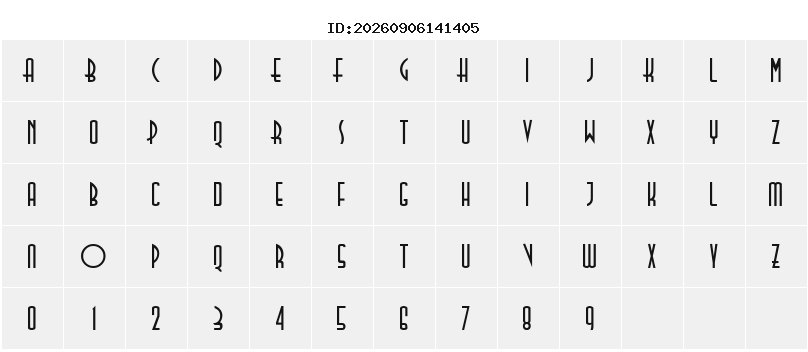
TallDeco Preview
• Font Name: TallDeco
• Full Font Name: TallDeco Normal
About TallDeco.ttf
TallDeco.ttf is a modern, elegant sans-serif font designed for ultimate readability and visual harmony. Perfect for branding, headlines, web design, and print materials.